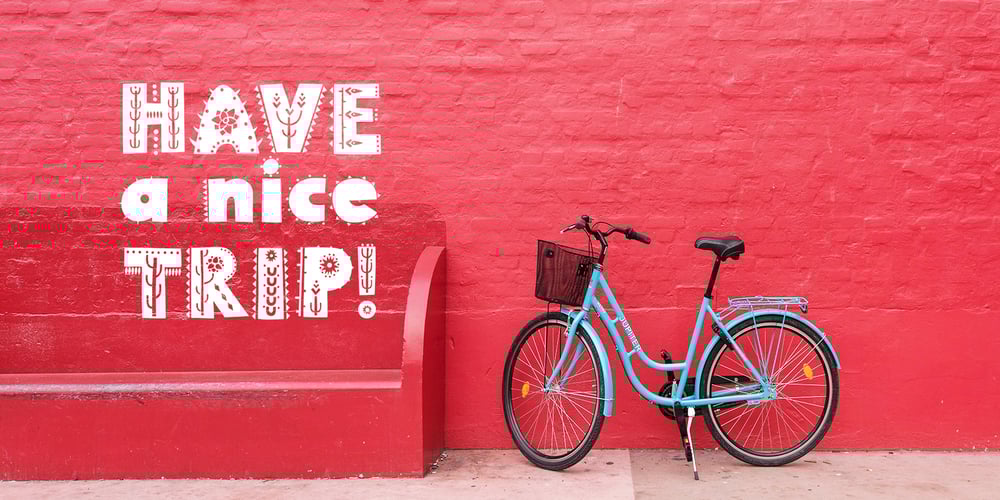
Mexico
Mexico font
Mexico Font Family was designed by Viktoryia Strukouskaya, Viktor Strukouski and published by Struvictory.art. Mexico contains 2 styles and family package options. We want to introduce Mexico Font Family. The letters of the display font are decorated with floral ornaments based on Mexican landscapes. The typeface is presented in two styles: decorative and blank, сombine them to get your unique design. Mexico font is suitable for lettering posters and cards, tourist brochures, photo overlays, book covers and article titles. The font also works great for printing clothes, products branding and packaging. Also use individual letters and symbols to create logos and monograms.